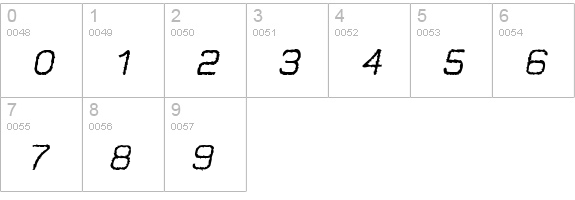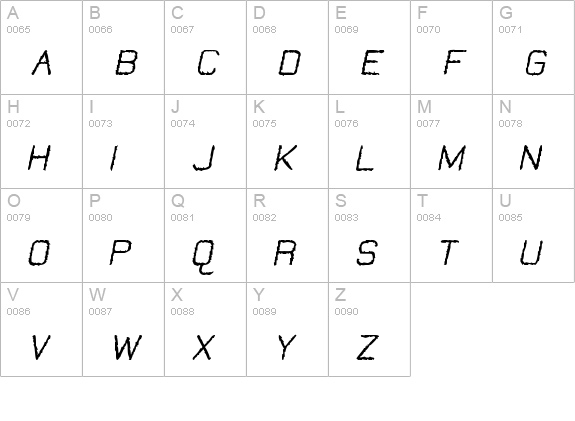
Introducing Jungle Burnout 1 font, a bold and dynamic typeface that captures the untamed spirit of the jungle with its rugged and adventurous design. This font exudes a sense of energy and excitement, making it perfect for projects that require a touch of wildness and vitality. Jungle Burnout 1 font is a versatile typeface that can be used for a wide range of design applications, from branding and packaging to posters and social media graphics. Its distinctive style will make your text stand out and leave a lasting impression on your audience. The best part? Jungle Burnout 1 font is available for free download exclusively at FontsMarket.com! Don't miss this opportunity to add a touch of jungle-inspired flair to your projects without breaking the bank. Download Jungle Burnout 1 font today and let your creativity run wild!